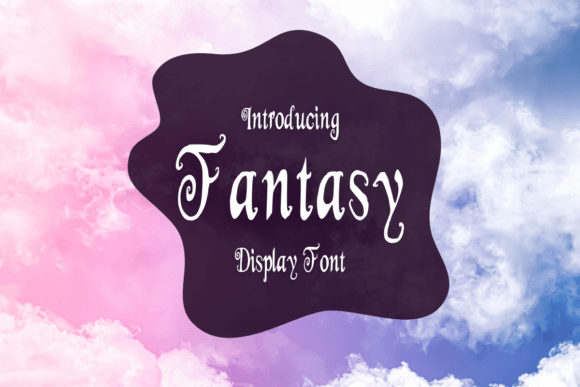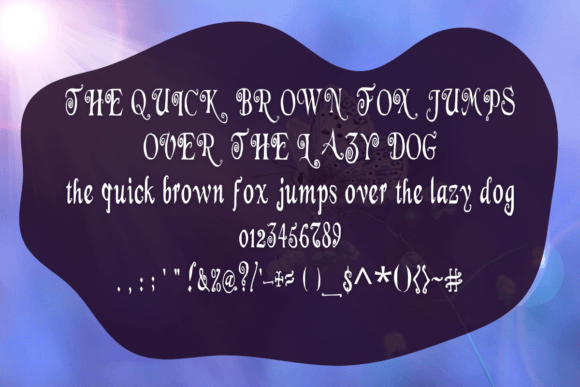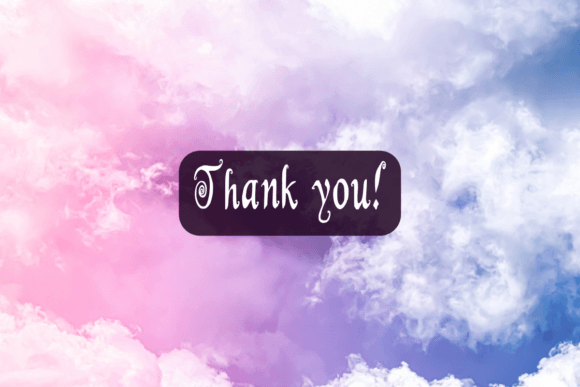
Unleashing Your Creativity with Fantasy Font
Have you ever found yourself staring at a blank page, desperate for the perfect font to bring your design to life? You’ve scoured through font collections, experimented with different styles, and still, nothing seems quite right. That’s where the Fantasy Font comes in – a quirky, whimsical, and elegant display font that’s sure to add a touch of magic to your next project.
Perfect for wedding invitations, cards, logos, headlines, and more, Fantasy Font is a versatile choice for designers looking to add a unique twist to their work. Its informal yet elegant style makes it an ideal addition to any creative project, from social media graphics to branding materials. With Fantasy Font, you can take your designs to the next level and make them truly unforgettable.
Fantasy Font Key Features
- Unique Characteristics: Fantasy Font features a distinctive, hand-drawn style with intricate details and ornaments, making it ideal for fantasy and science fiction projects.
- Language Support: Fantasy Font supports a wide range of languages, including Latin, Cyrillic, and Greek alphabets, as well as many non-Latin scripts.
Review of Fantasy Font
I recently had the chance to work with Fantasy Font, and I must say it’s an interesting choice for any design project. ✨ One thing that stands out is the unique blend of fantasy and elegance that this font embodies. It’s perfect for adding a touch of whimsy to any design without going overboard.
The font’s versatility is also a major plus. ✨ It works well in both digital and print formats, making it a great choice for designers who work on a wide range of projects. Additionally, the font’s ligatures and contextual alternates make it a joy to typeset.
- ⚠️ The font’s readability can suffer at smaller sizes, which may be a concern for designers who need to ensure their text is easily readable.
- ⚠️ The font’s weight and width may not be ideal for all design applications, particularly those that require a more neutral or minimalist aesthetic.
Overall, I think Fantasy Font is a great choice for designers who want to add a touch of fantasy and elegance to their work. While it may not be perfect for every project, it’s definitely worth considering for those who want to add a little magic to their designs.
Fantasy Font is ideal for creative projects that require an otherworldly or magical feel, such as:
- Book covers and illustrations
- Role-playing game (RPG) materials and character sheets
- Fantasy-themed posters and advertisements
Tips for Getting the Most Out of Fantasy Font
Experiment with different font sizes and styles to achieve the desired effect. Use Fantasy Font in combination with other creative elements, such as illustrations and graphics, to create a cohesive and immersive design.